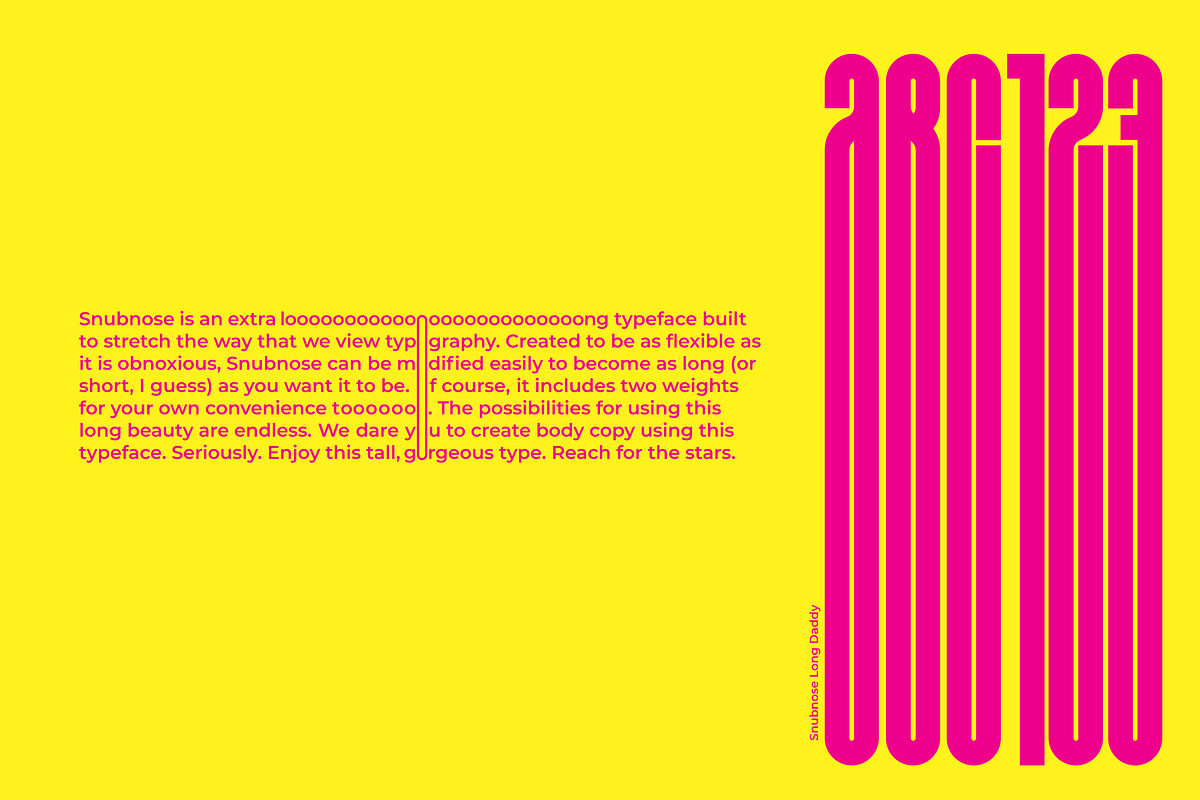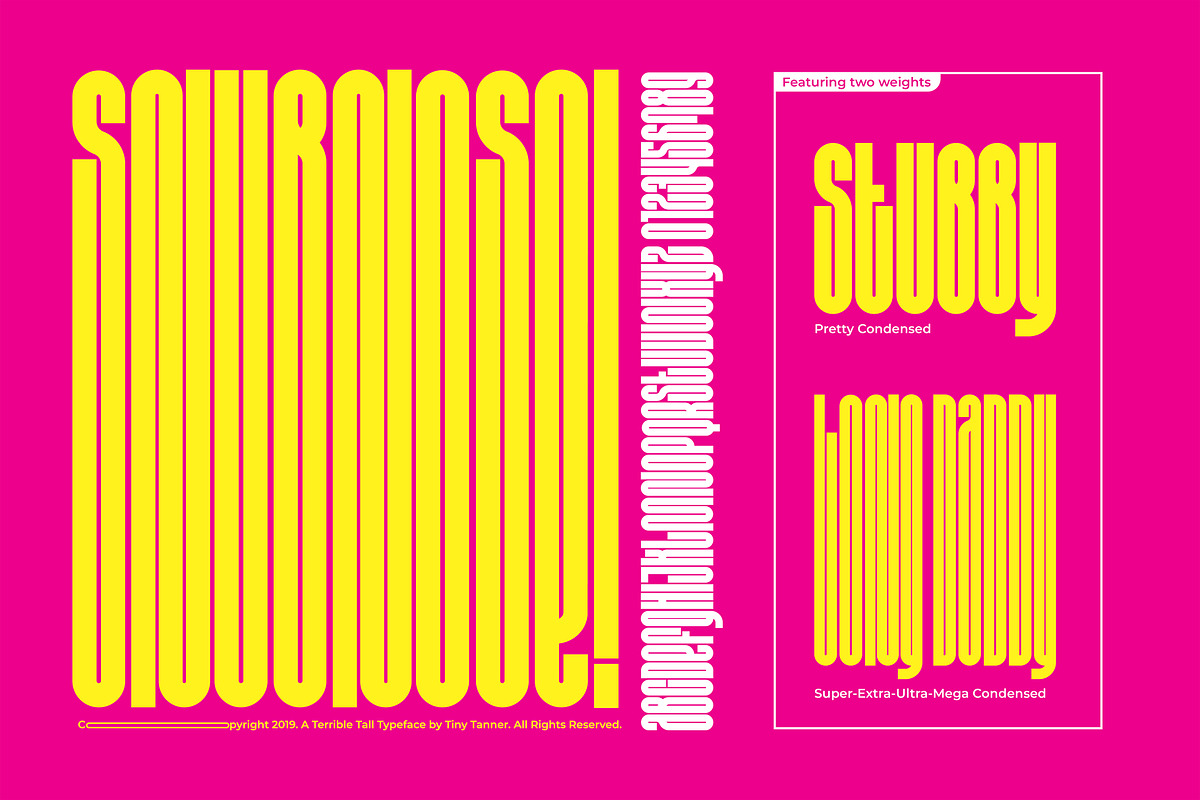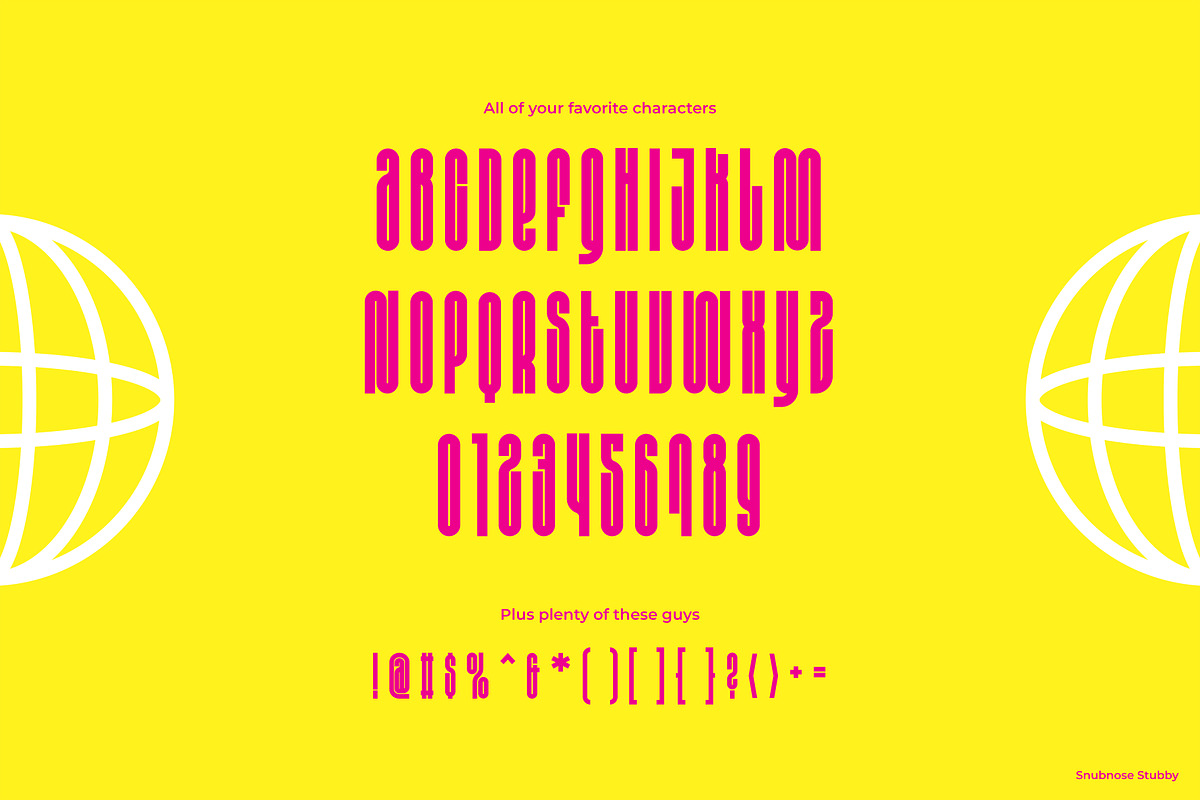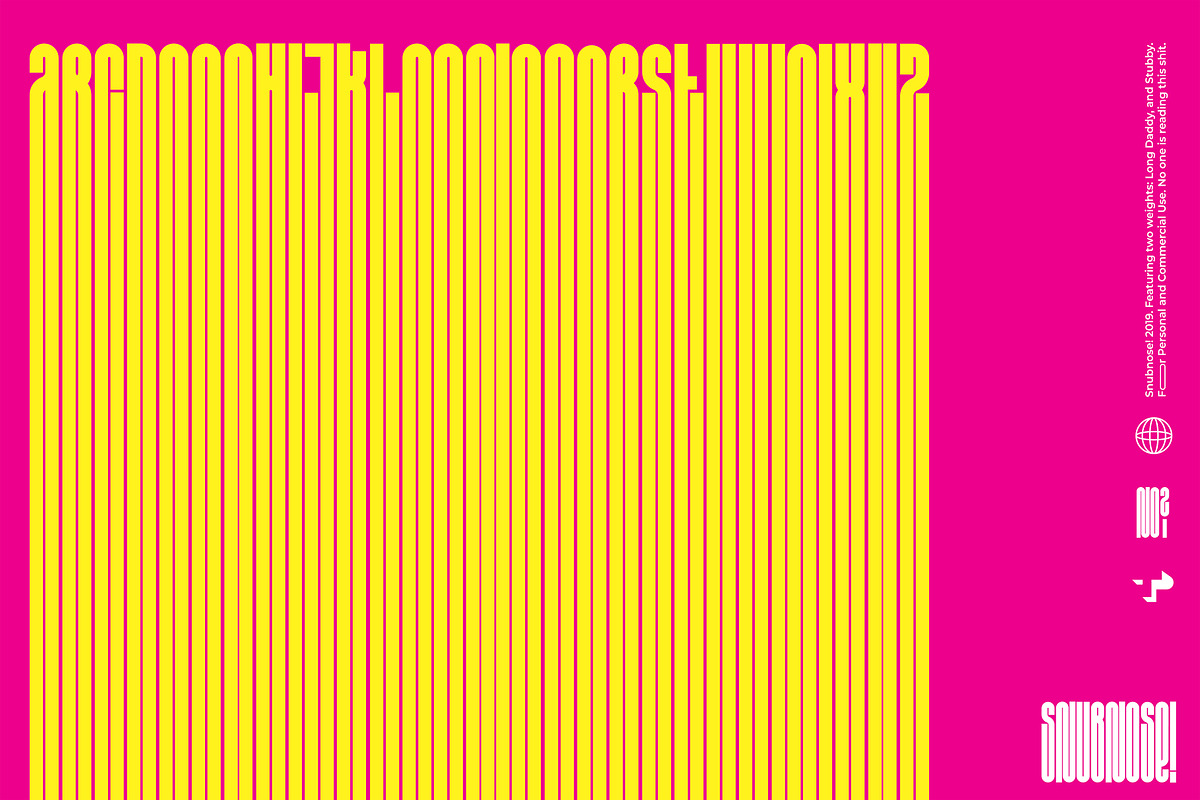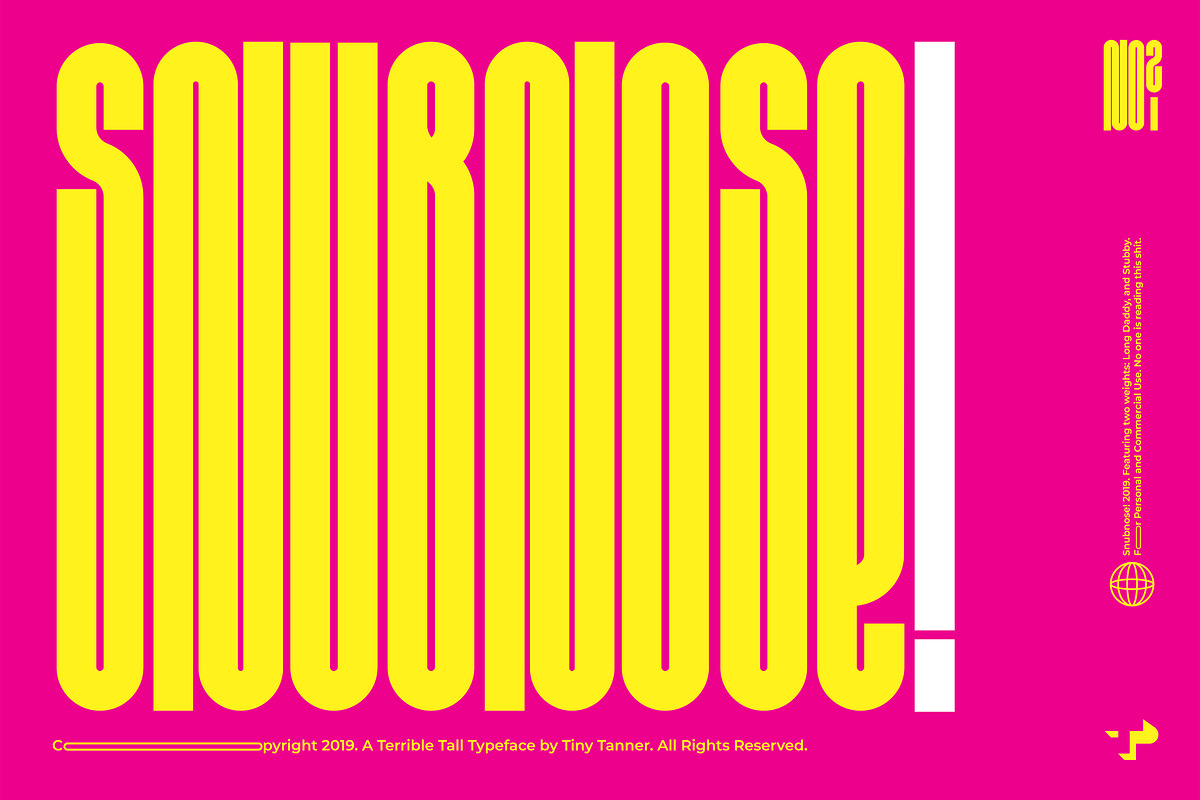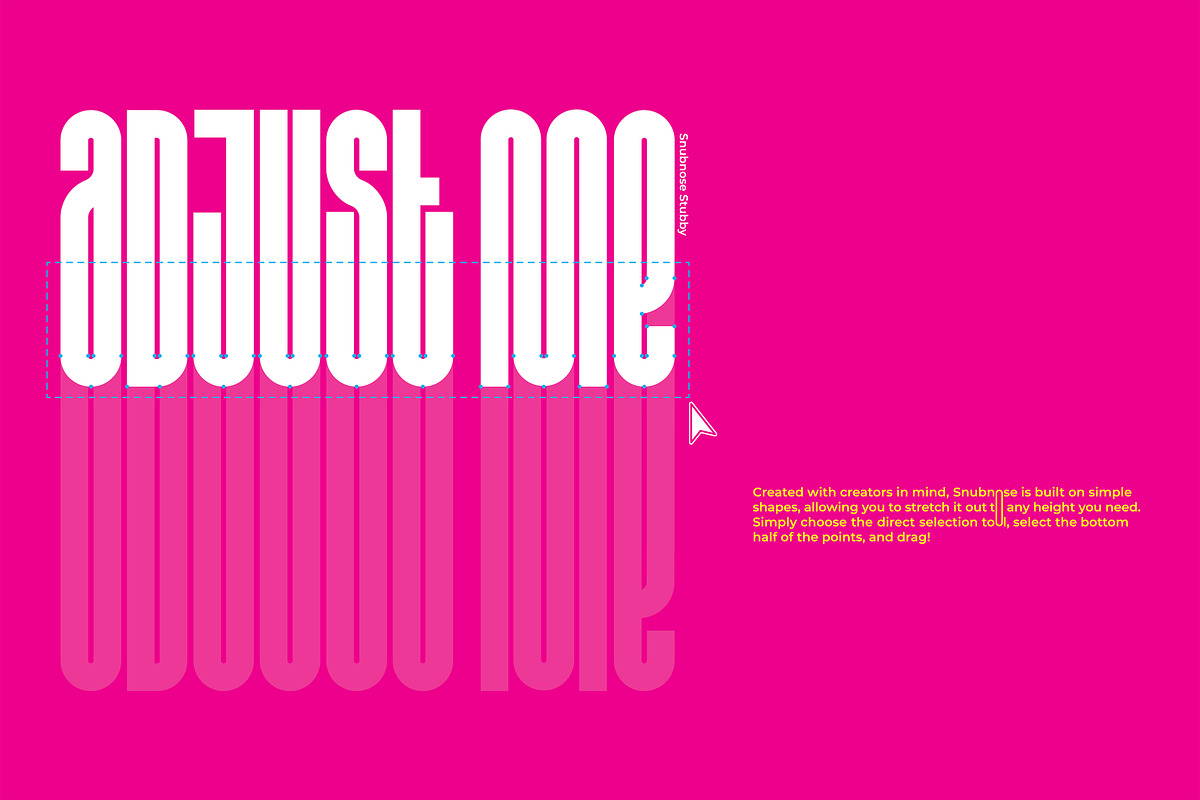
Snubnose! Display Typeface
Snubnose is an extra loooooooooong typeface built to stretch the way that we view typography. Created to be as flexible as it is obnoxious, Snubnose can be modified easily to become as long (or short, I guess) as you want it to be. Of course, it includes two weights for your own convenience tooooooo. The possibilities for using this long beauty are endless. We dare you to create body copy using this typeface. Seriously. Enjoy this tall, gorgeous type. Reach for the stars.